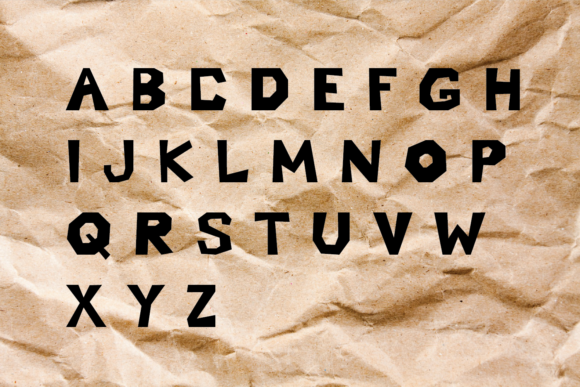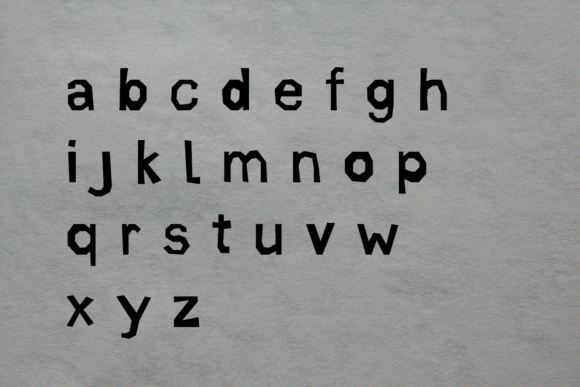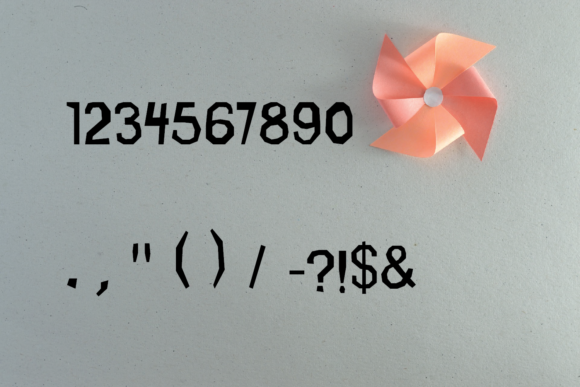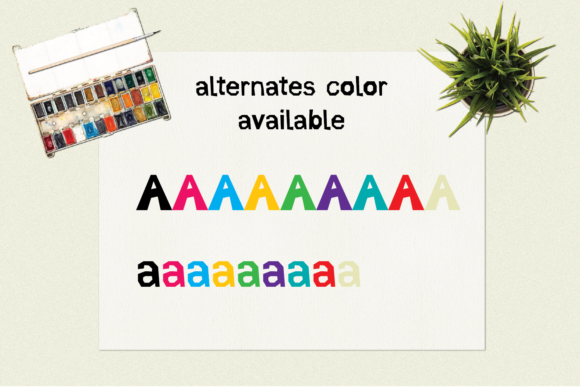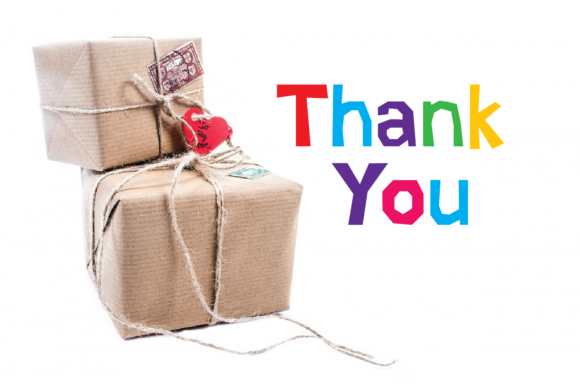
Introduction to Cut out Paper Font
As you sit at your desk, surrounded by scraps of paper, glue, and scissors, the creative juices start flowing. You’ve got an idea for a new design project, and you can almost see it coming together in your mind’s eye. But then, the question hits: how do you turn that vision into a reality? For designers like you, having the right design resources can make all the difference between a mediocre project and a masterpiece.
That’s where the Cut out Paper Font comes in – a game-changing crafting-themed color font that’s about to revolutionize your creative process. With its unique cutout paper style and 8 alternates colors for uppercase and lowercase glyphs, this font is the perfect addition to your design arsenal. Whether you’re working on a free download or a high-quality project, the Cut out Paper Font is sure to elevate your design to the next level.
Key Features of Cut out Paper Font
- High-quality design resource perfect for creative projects and designs
- Unique cut-out design elements with transparent backgrounds for easy editing
- Perfect for use in graphic design, digital art, and scrapbooking projects
Honest Review: Cut out Paper Font
As a designer, I’m always on the lookout for high-quality design resources to elevate my creative projects. Recently, I had the chance to try out the Cut out Paper Font, and I’m excited to share my honest review with you.
- High-quality design: The Cut out Paper Font boasts a crisp, clean design that’s perfect for a variety of creative projects.
- Transparent background: The transparent background of this font makes it easy to use in designs where you need a subtle, layered look.
- Limited font styles: While the Cut out Paper Font is a great addition to any design collection, it’s limited to a single font style, which may not be suitable for projects that require multiple font variations.
- Not suitable for large-scale text: Due to its delicate design, the Cut out Paper Font may not be the best choice for large-scale text, as it can become difficult to read.
Overall, I’m impressed with the Cut out Paper Font’s high-quality design and versatility. While it may have some limitations, it’s a great resource for designers looking to add a unique touch to their creative projects.
How to Use Cut out Paper Font
The Cut out Paper Font is a versatile design resource perfect for creating high-quality, visually appealing graphics for various creative projects. With its transparent background, it’s easy to layer and manipulate in your favorite design software.
Experiment with layering, combining, and manipulating the Cut out Paper Font to create unique and eye-catching designs. Don’t be afraid to try new things and push the boundaries of what’s possible.
The Cut out Paper Font is perfect for:
- Creating whimsical and playful designs for children’s products and services.
- Designing modern and minimalist graphics for fashion and lifestyle brands.
- Adding a touch of nostalgia and charm to vintage-inspired projects.